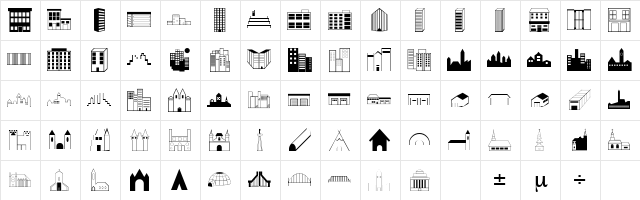
Architectural Regular
Design Context for Architectural
Architectural is a composed and adaptable typeface that performs quietly and consistently across a wide range of design contexts.